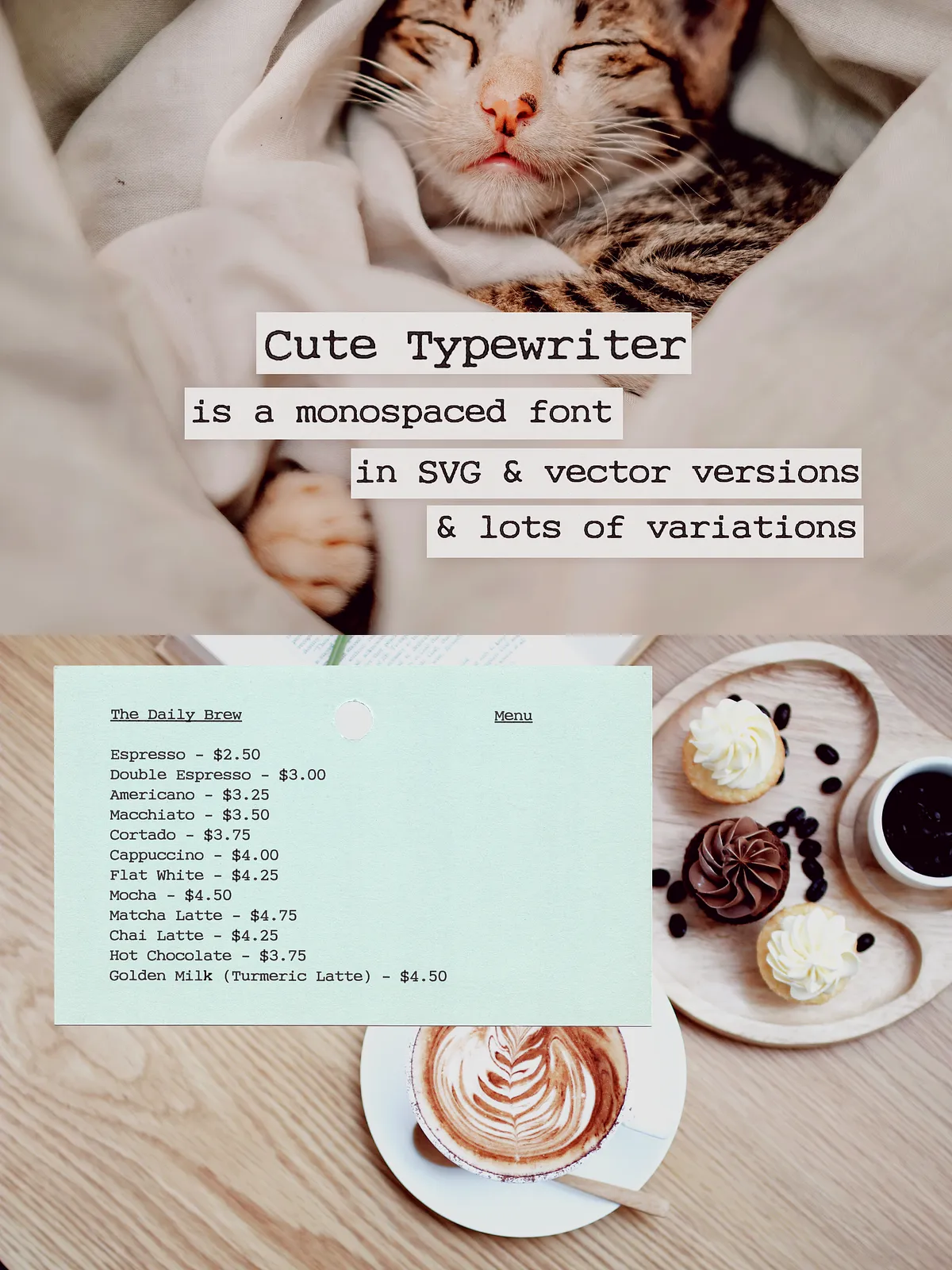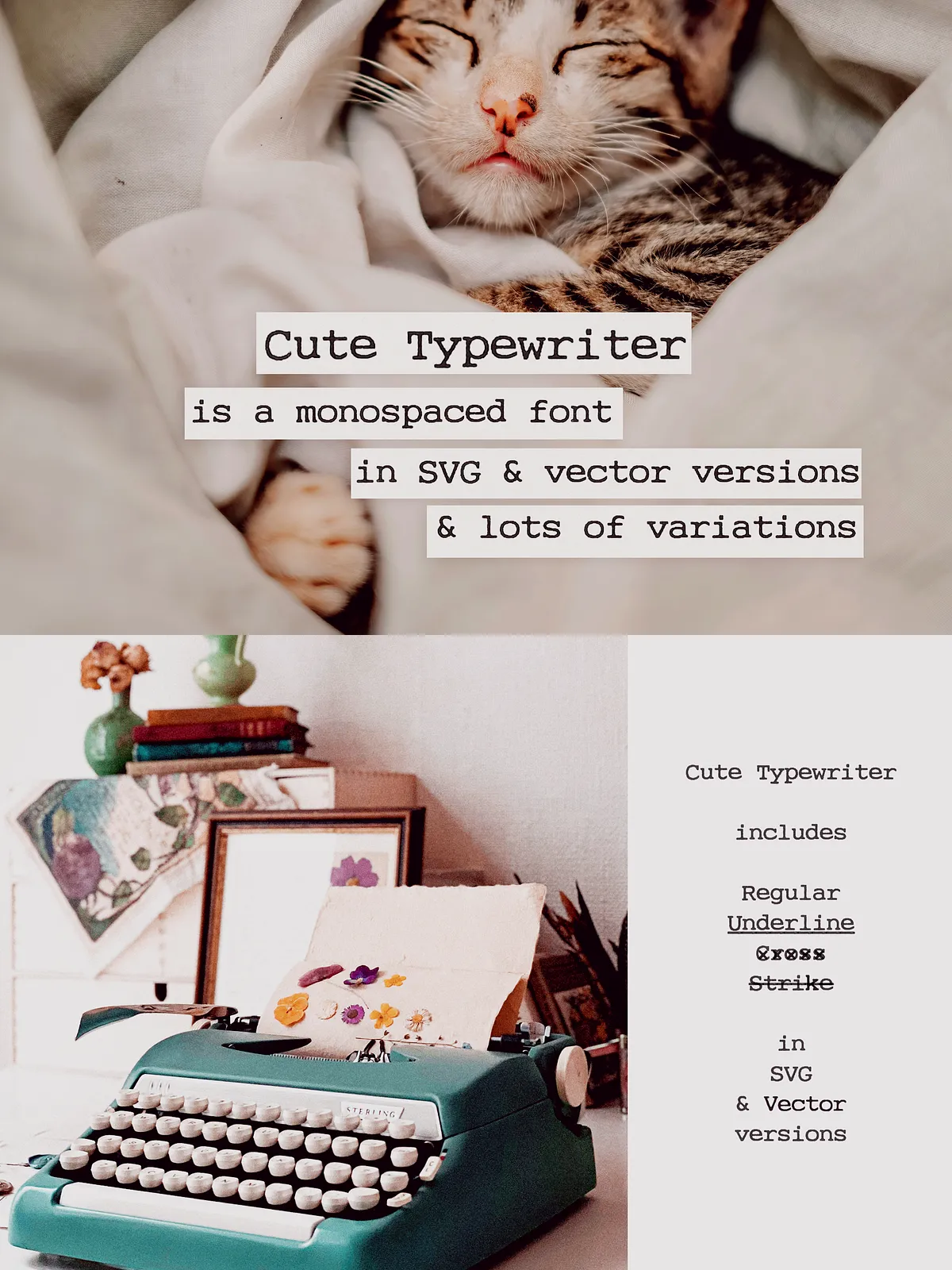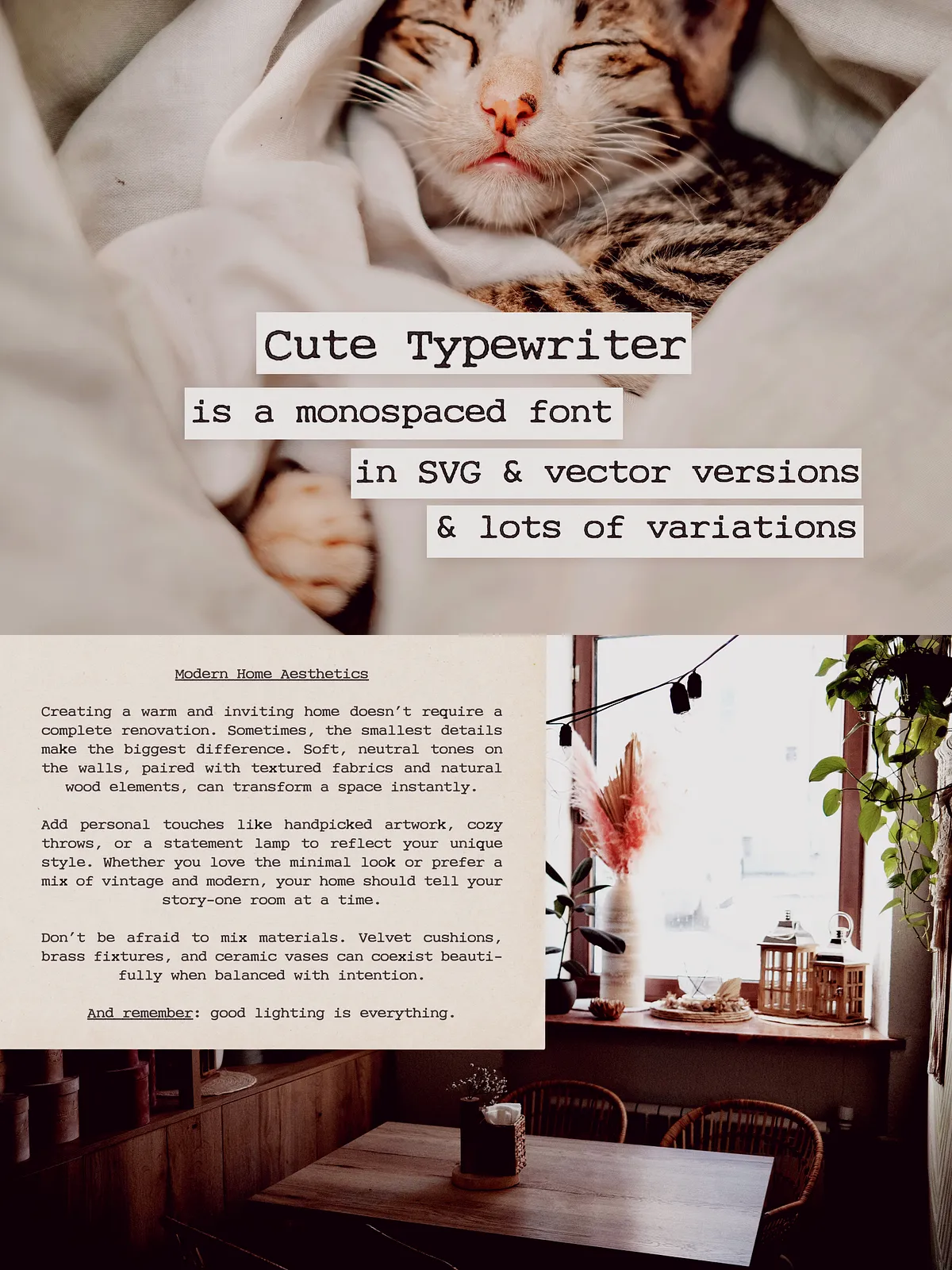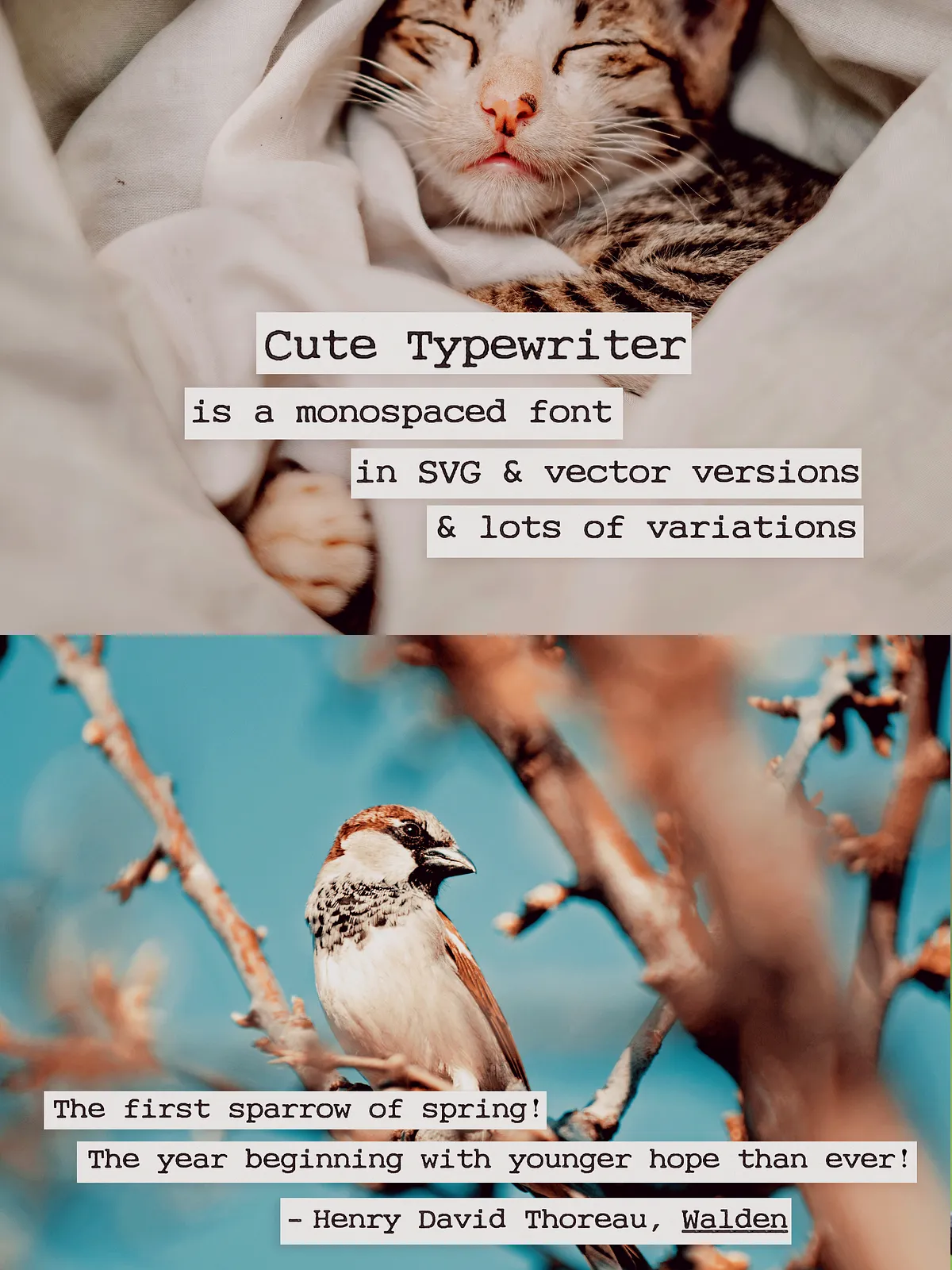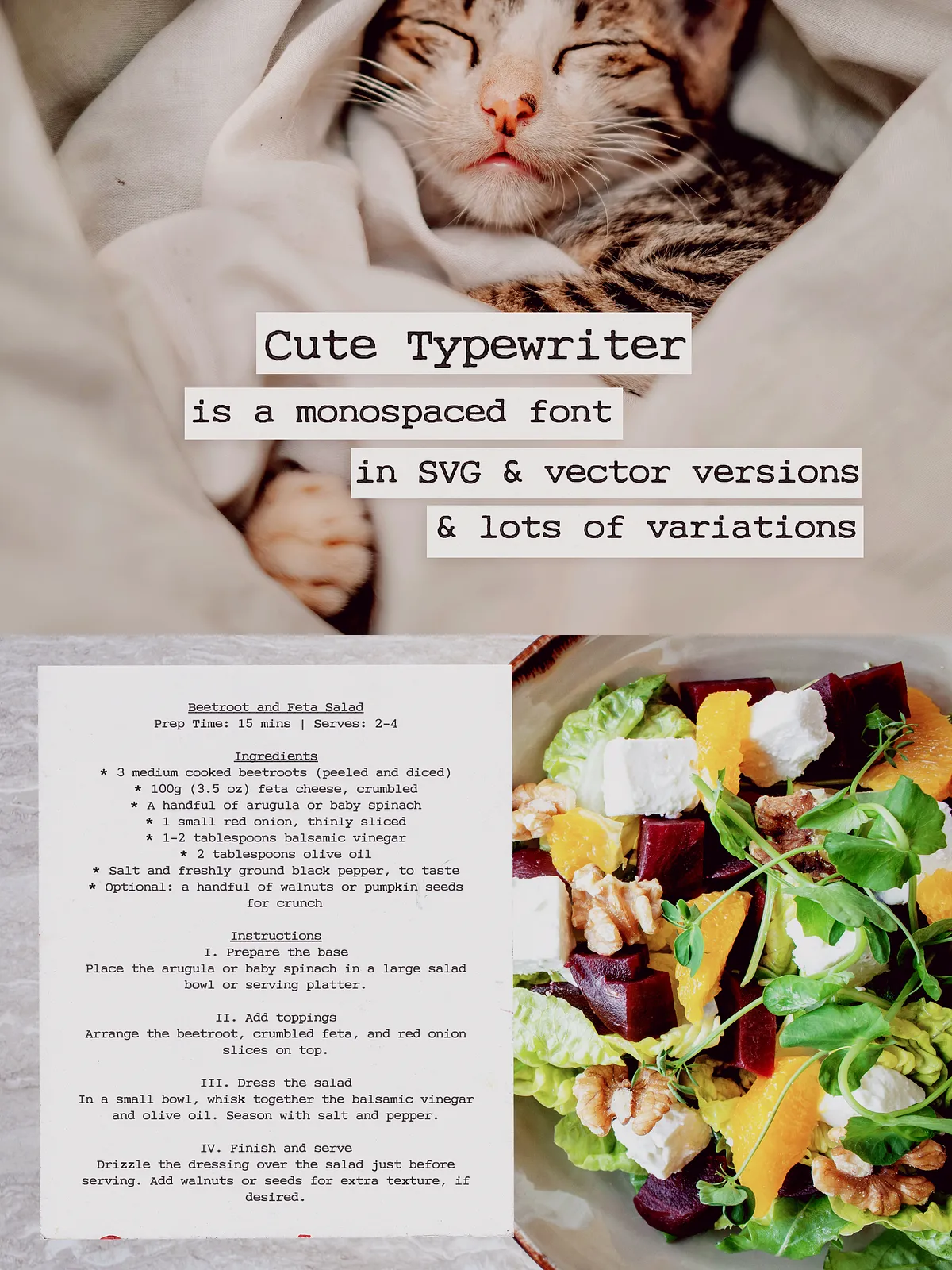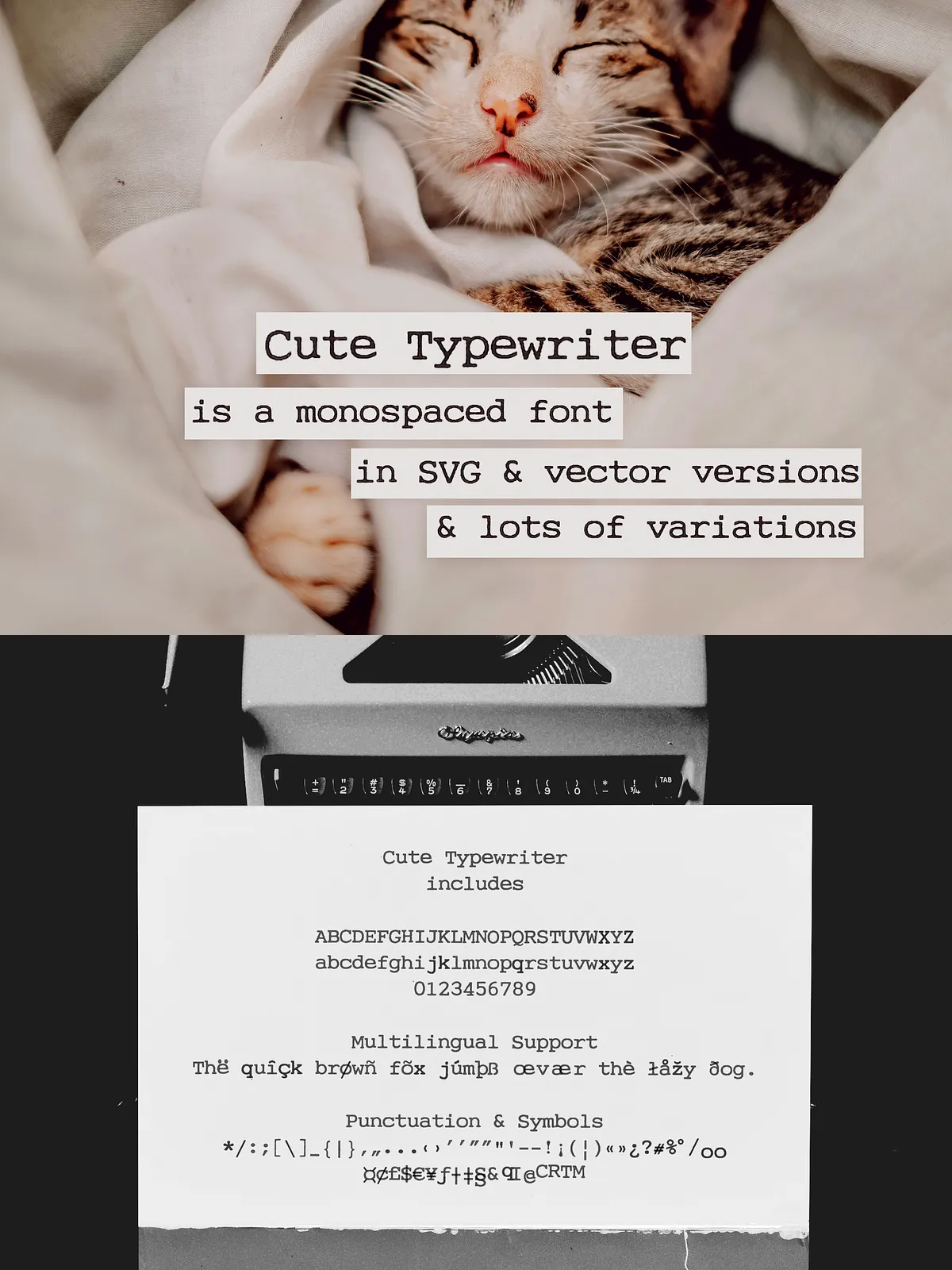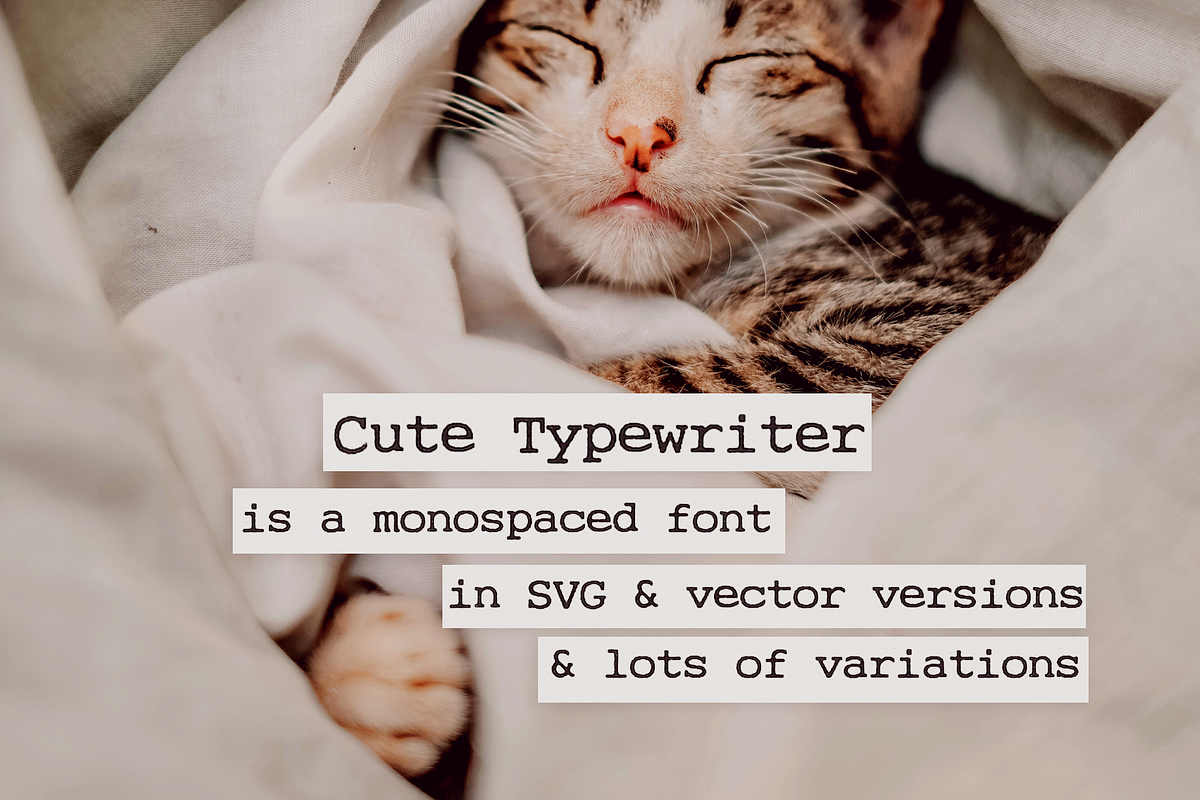
Step into the world of retro authenticity with Cute Typewriter — a monospaced serif typewriter font that merges nostalgic charm with a defiantly modern personality. Every character carries the tactile weight of old office machines, paper jams, and handwritten notes. Yet it’s not stuck in the past — it’s reimagined for today’s creative landscape.
Whether you’re designing a limited-edition zine, launching a vintage-inspired brand, or crafting a grungy editorial spread, Cute Typewriter delivers a genuine vintage feel that resonates with warmth and character. Its slightly irregular spacing, textured strokes, and natural imperfections create a handcrafted aesthetic that feels alive.
Four Styles for Dynamic, Imperfect Creativity
Built around authenticity, Cute Typewriter offers four distinct variations, each designed to add expressive depth to your project:
• Regular (Classic)
The foundation of the family. Clean, legible, and true to typewriter roots. Perfect for body text, captions, and clean retro layouts where clarity matters.
• Underline (Emphasized)
Use this style to highlight key phrases, add emphasis, or simulate handwritten notes with a drawn-in line beneath. Ideal for dialogue, quotes, and attention-grabbing statements.
• Strike-through & Crossed-out (Playful)
Embrace the messiness of true creativity. These styles replicate the look of erasures, revisions, and crossed-out drafts — perfect for journaling themes, editorial commentary, or editorial chaos in design. Inject spontaneity and narrative depth into your visuals.
Engineered for Designers Who Crave Authenticity
Cute Typewriter isn’t just visually nostalgic — it’s technically refined for real-world use. With full SVG and scalable vector support, you get pixel-perfect results at any size, from tiny product packaging labels to massive street art murals.
Fully Scalable & High-Resolution
- Each style maintains consistent monospaced spacing and typographic integrity.
Where Cute Typewriter Makes an Impact
This font thrives in environments where personality, imperfection, and emotion matter.
• Retro Branding & Vintage Identity
Create unforgettable logos, business cards, and merchandise for coffee shops, record labels, or retro fashion lines. Cute Typewriter tells a story before the first word is read.
• Zines, Fan Art, and DIY Design
Perfect for small-run publications, protest art, or personal projects. Its organic, slightly uneven structure feels human — not machine-made.
• Packaging & Product Labels
Stand out on shelves with labels that feel hand-crafted, imperfect, and full of character. Great for craft beer, indie skincare, baked goods, and small-batch goods.
• Editorial & Distressed Layouts
Use it in magazine spreads, book covers, or digital stories to give a raw, honest, and unpolished tone. It conveys authenticity in a world of digital perfection.
Cute Typewriter isn’t just a font — it’s a design philosophy. It values imperfection. It celebrates the handmade. It honors the past while speaking to the present.
Stop using sterile, over-polished typefaces. Start creating with real texture, real history, and real soul.